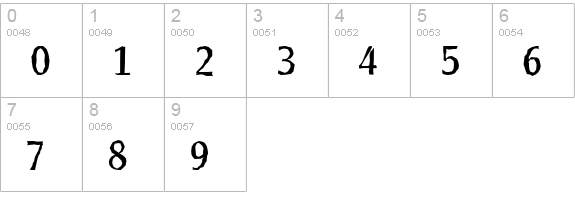
ClearGothicAntique-Regular is the standard, neutral variant in the ClearGothicAntique typeface family \xE2\x80\x94 well suited to general body text, paragraphs, and standard typographic work.
ClearGothicAntique-Regular is a sleek and elegant font that combines classic Gothic elements with a modern twist. Its clean lines and intricate details make it perfect for a wide range of design projects, from elegant invitations to stylish branding. This versatile font exudes sophistication and charm, making it a popular choice for designers looking to add a touch of class to their work. Best of all, ClearGothicAntique-Regular is available for free download at FontsMarket.com. Whether you're a professional designer or just looking to spruce up your personal projects, this font is a valuable addition to your font library. Don't miss out on the opportunity to enhance your designs with this exquisite typeface - download ClearGothicAntique-Regular today and elevate your creations to the next level.